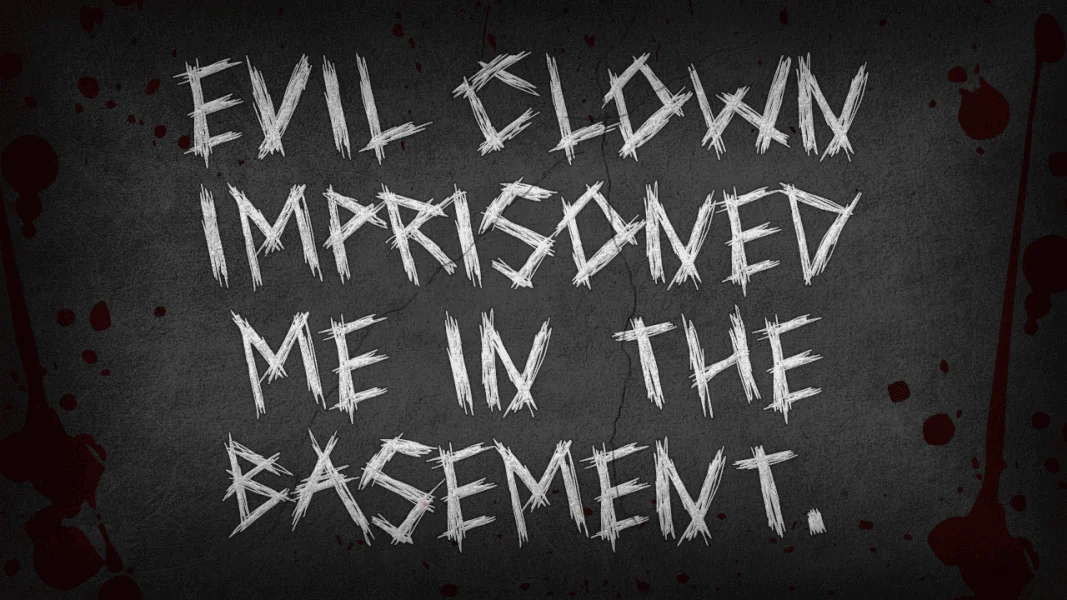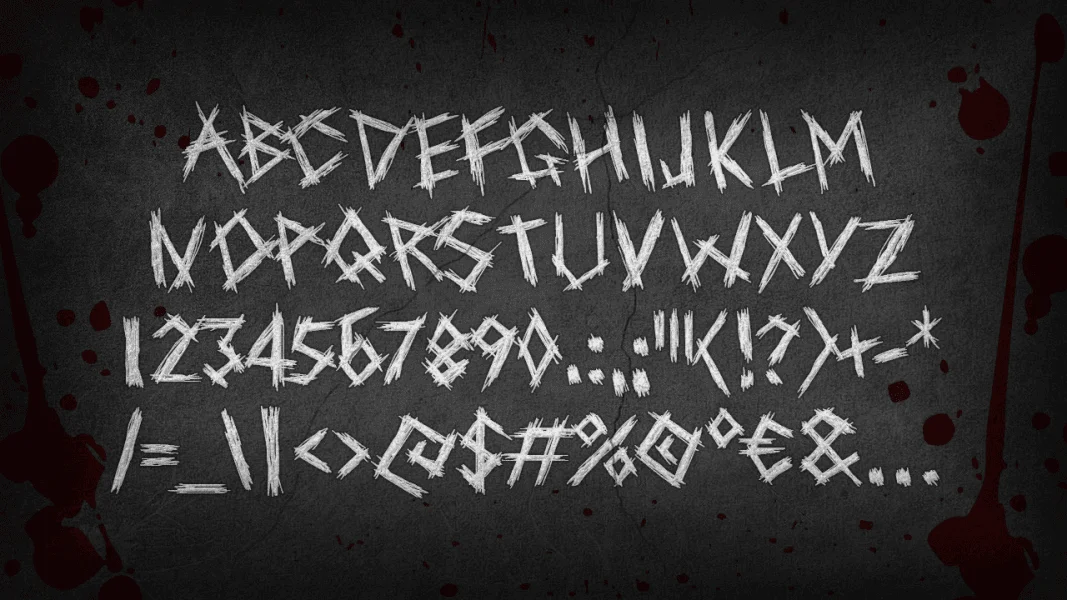
Help Me is a caps-only horror display font with a scratched, sketched construction and a raw graffiti edge. Its jagged strokes, uneven angles, and splintered linework create an urgent, distressed rhythm, while the narrow uppercase forms keep the texture sharp and readable.
The font works best for Halloween graphics, horror posters, haunted-house branding, album covers, game titles, dark merchandise, and dramatic social media headlines where a rough, unsettling voice is needed.